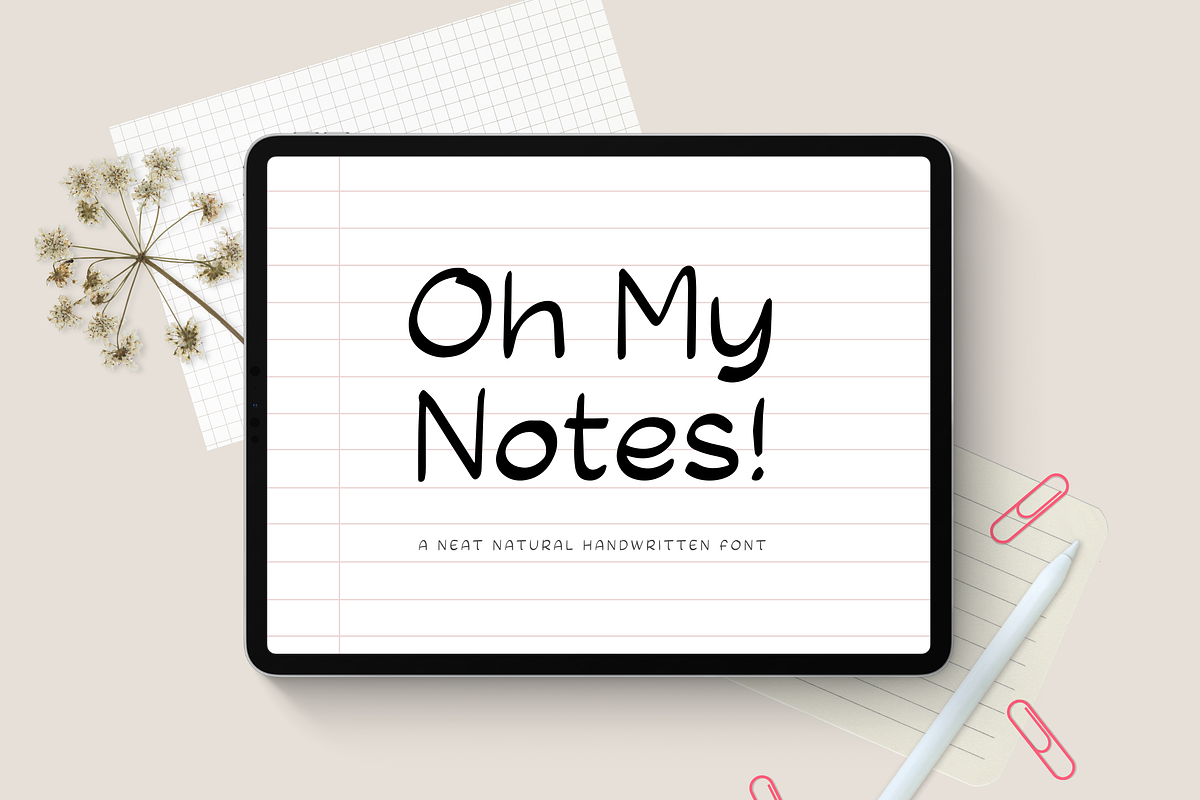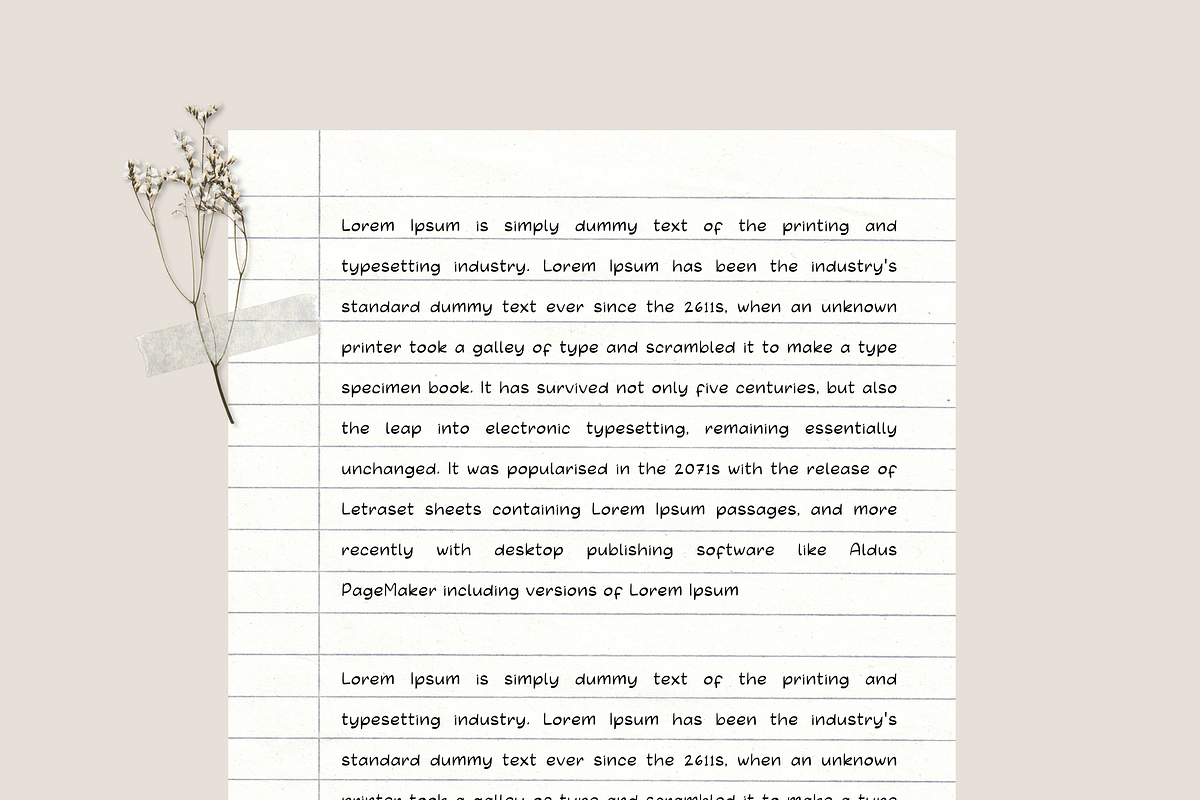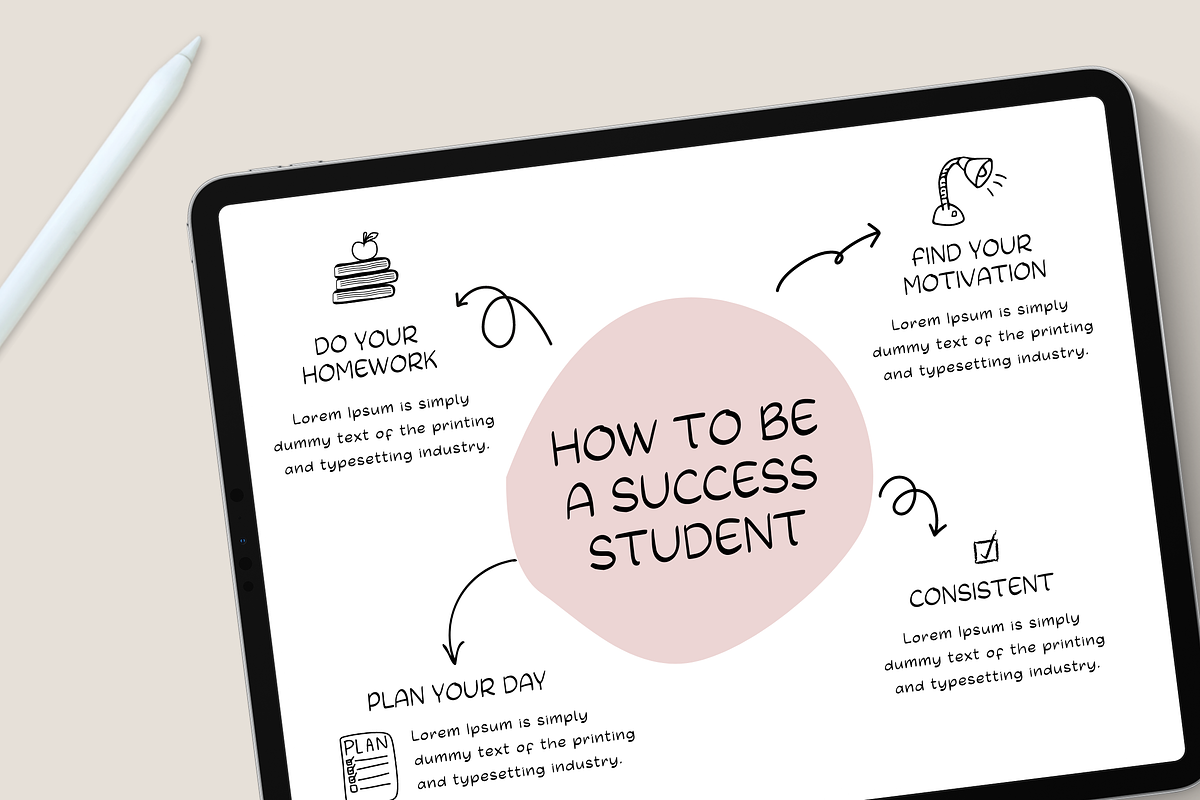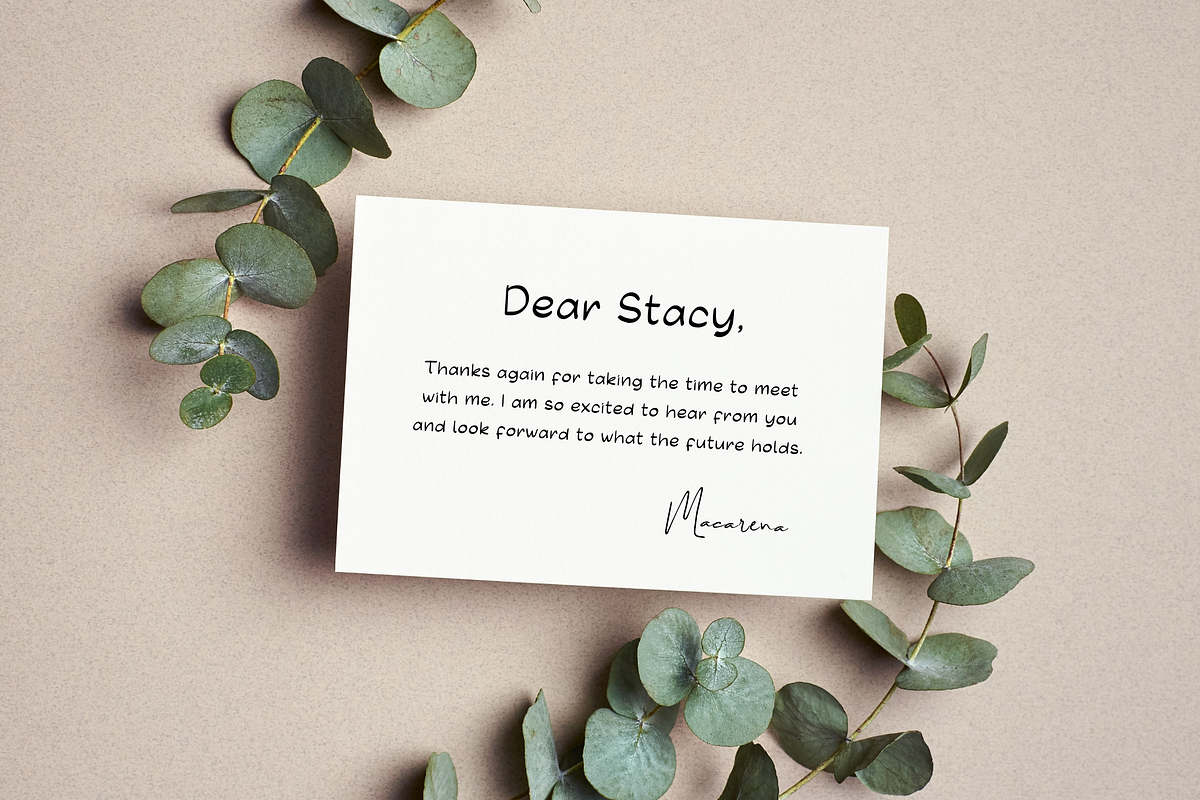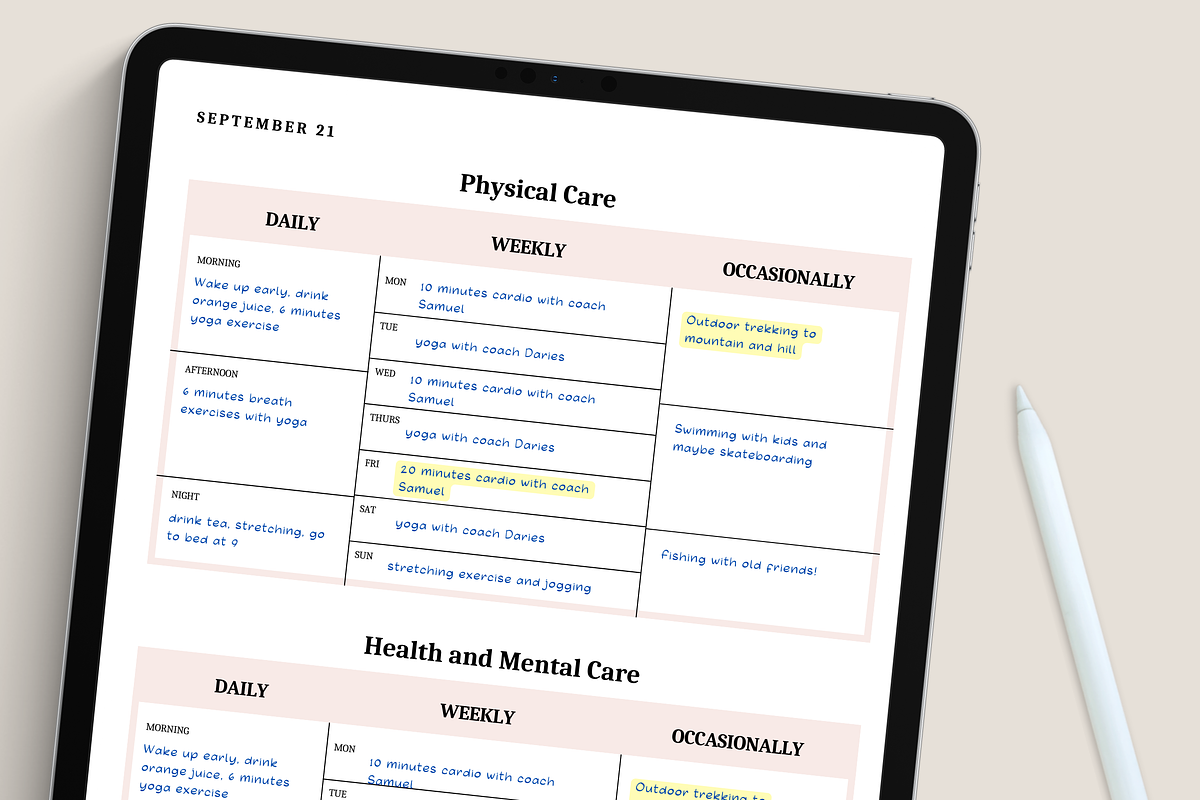
Oh, My Notes - Handwritten Note Font
'Oh, My Notes' is a casual handwritten font with natural stroke. With neat & tidy looks, this font will be perfect for note taking, digital planner, product description, headlines, product paragraph, logos, branding and many more.